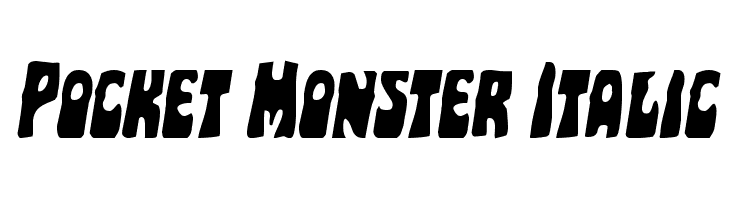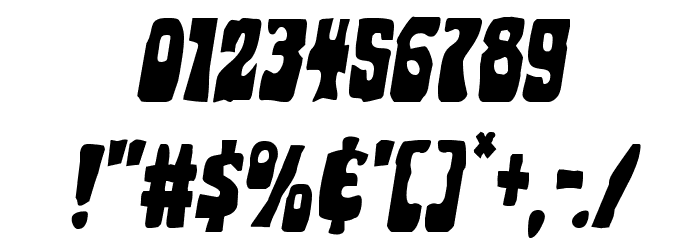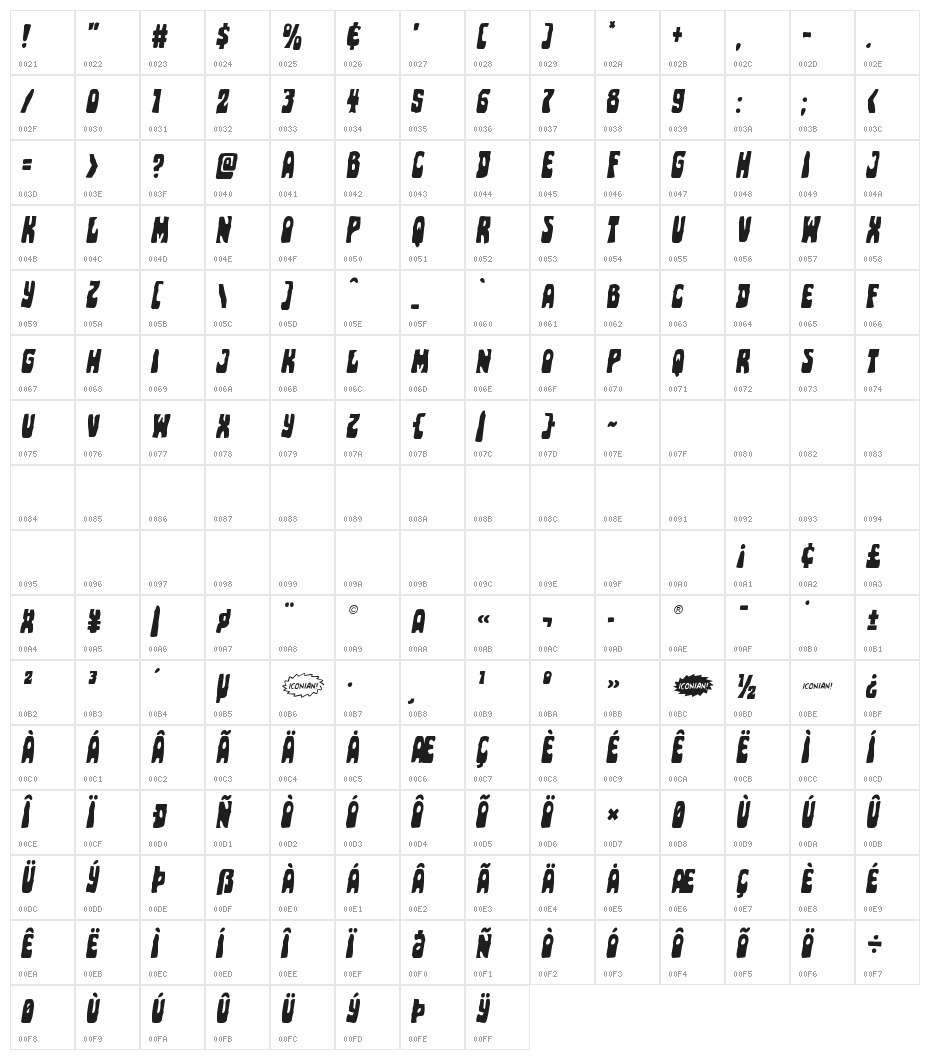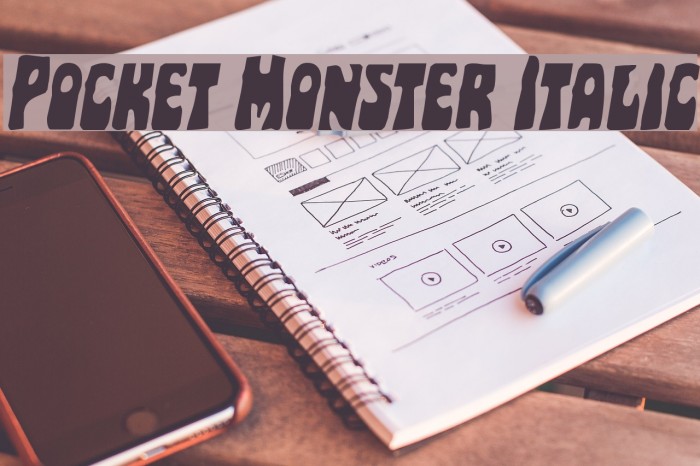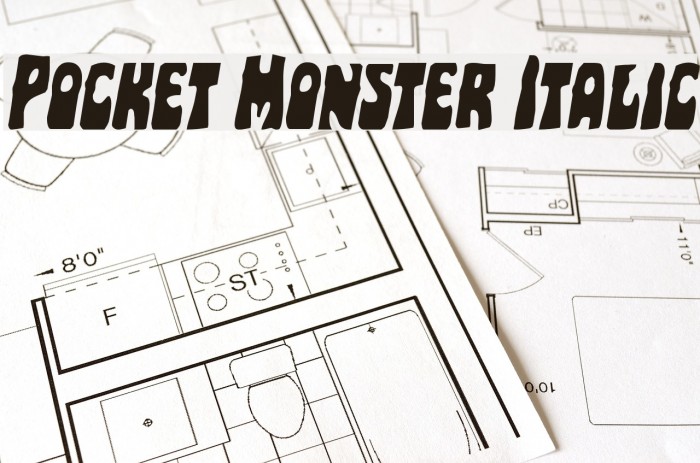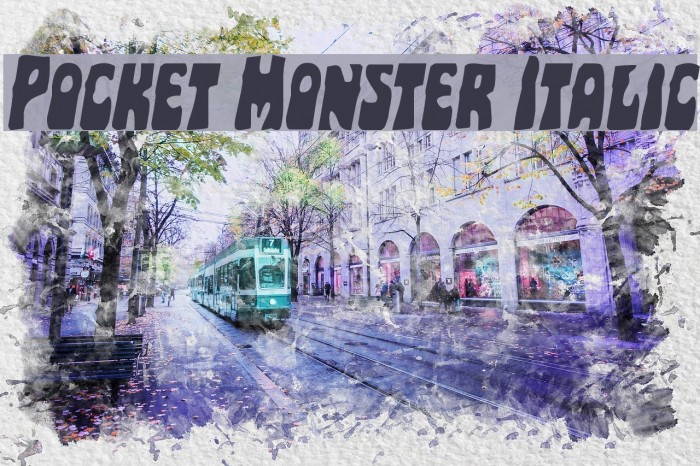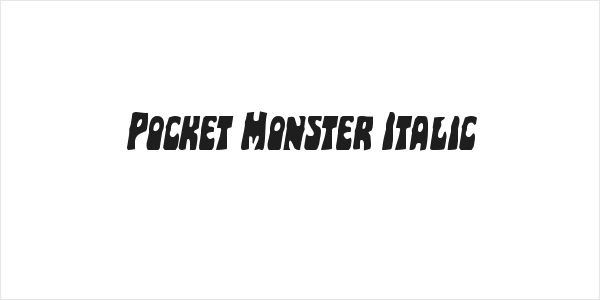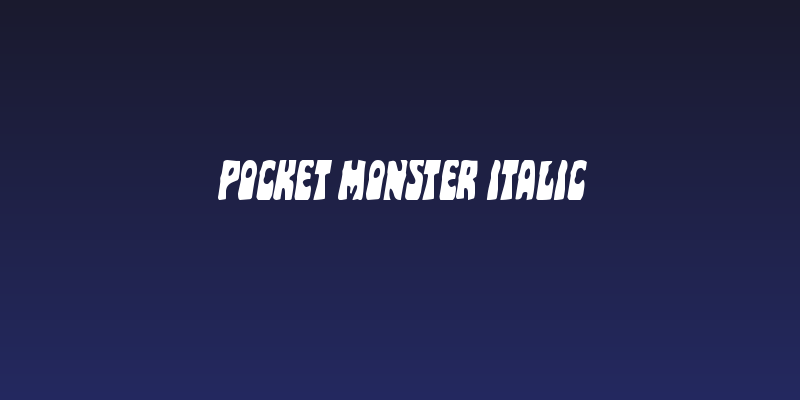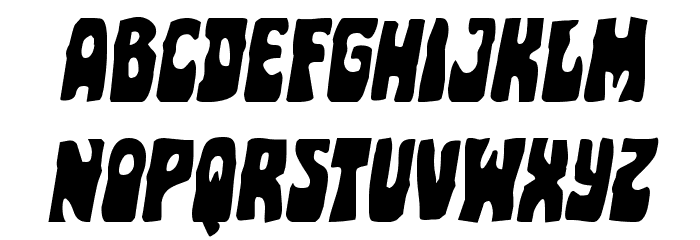
Pocket Monster Italic Font
Pocket Monster Italic Description
This font features a bold and playful design with a distinct italic slant, giving it a dynamic and energetic appearance. The characters are thick and robust, with irregular edges that add a whimsical and adventurous feel. The uppercase and lowercase letters maintain a consistent style, while the numbers and special characters complement the overall theme. The font's unique style makes it stand out, capturing attention with its bold presence and quirky charm. It's perfect for projects that require a fun and lively touch, such as children's books, games, or playful branding.
| Overall Style | Playful, Energetic, Whimsical |
| Proposed Projects | Ideal for children's books, games, playful branding, and creative posters. |